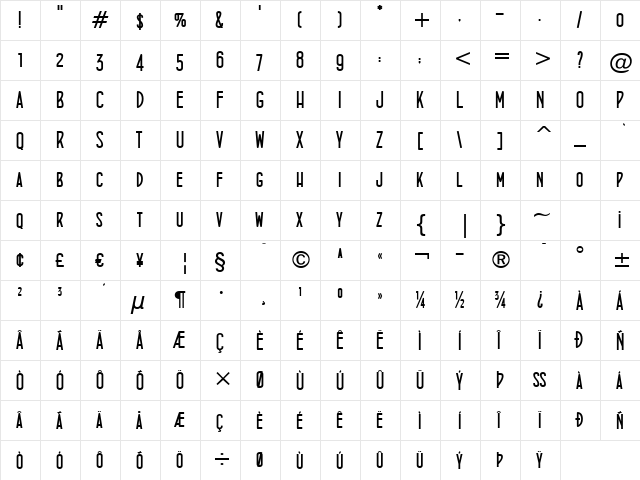
ConcursoItalian BTN Bold
ConcursoItalian BTN Bold Font Preview
ConcursoItalian BTN Bold
Design Context for ConcursoItalian BTN Typeface
ConcursoItalian BTN offers clean, dependable letterforms without strong stylistic allegiance, making it a practical choice for designers who need flexibility. The heavy weight commands attention and anchors typographic hierarchies.
Pro Tip: Use ConcursoItalian BTN in both headline and body roles to test its range before committing to a single application.